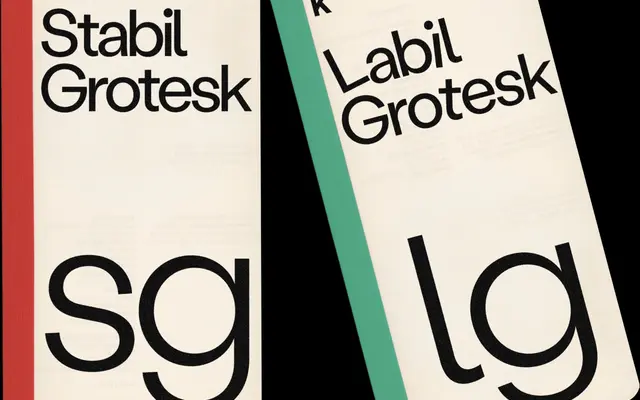
Labil Grotesk
A grotesque sans-serif from KOMETA Typefaces with a name suggesting deliberate instability or variability in its design approach.
Labil Grotesk is a grotesque sans-serif from KOMETA Typefaces, a foundry whose work tends toward considered, contemporary type design. The name 'Labil' implies a sense of instability or flux, suggesting a design with unconventional or variable characteristics within a grotesque framework. Further details on weights, language support and stylistic variants were not available from the page content provided.
The name and foundry context strongly indicate a grotesque sans-serif, with 'Labil' suggesting instability or variability, characteristic of contemporary experimental grotesque designs from Eastern European foundries.